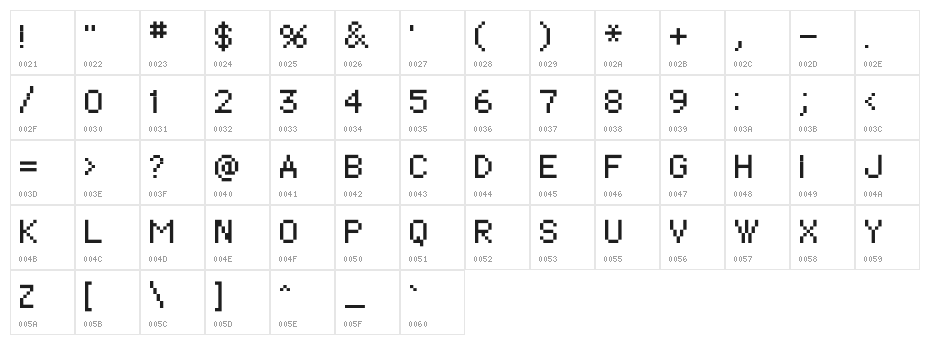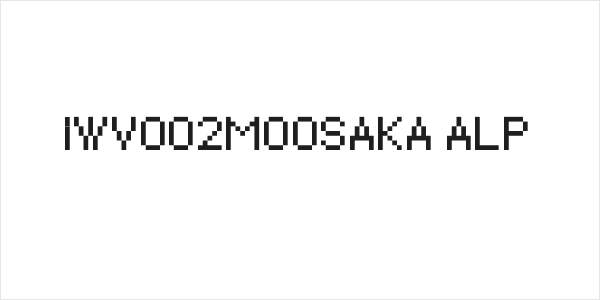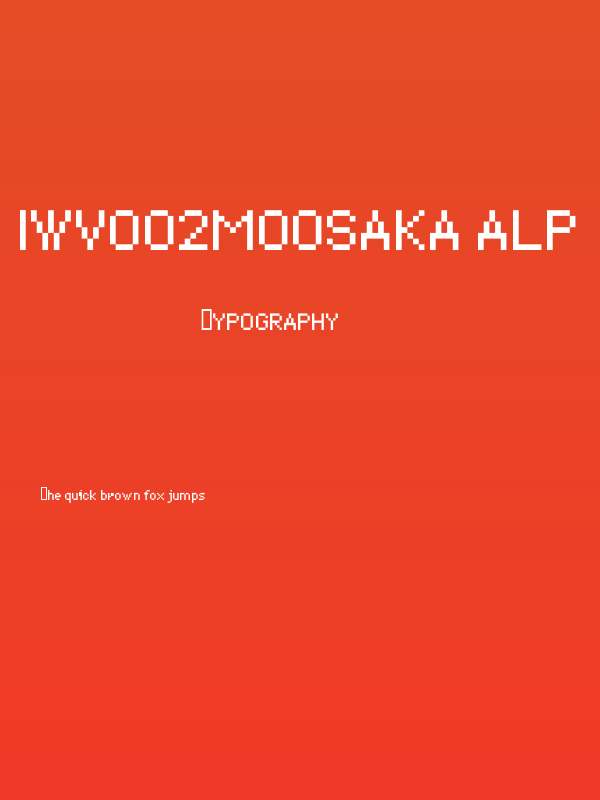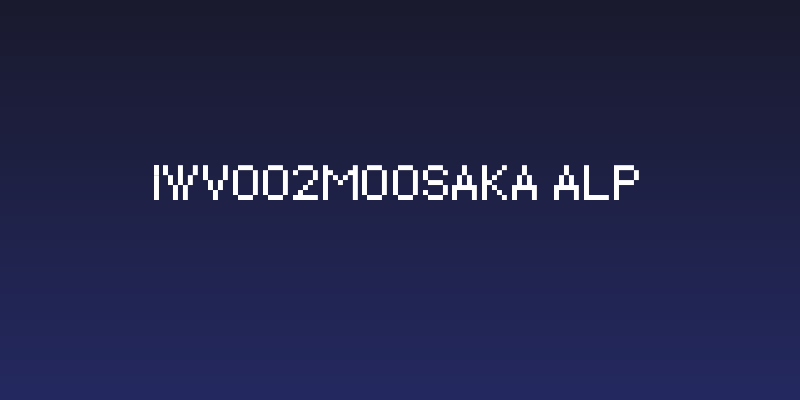
IWV002MOOSAKA ALP Font
IWV002MOOSAKA ALP Description
This font features a pixelated, blocky design reminiscent of early digital displays and video games. Each character is constructed from a grid of squares, giving it a distinctly retro and digital aesthetic. The uniformity in the height and width of the characters creates a cohesive and structured appearance. The font includes both uppercase and lowercase letters, numbers, and a selection of special characters. Its geometric nature makes it highly legible at various sizes, although it is best suited for larger displays where the pixelated effect can be appreciated. The style is playful yet functional, ideal for projects that aim to evoke nostalgia or a tech-inspired theme.
| Overall Style | Retro, Digital |
| Use Case | Headlines, Logos, Digital displays |
| Proposed Projects | Ideal for video game design, retro-themed posters, digital art projects, and tech-related branding. |